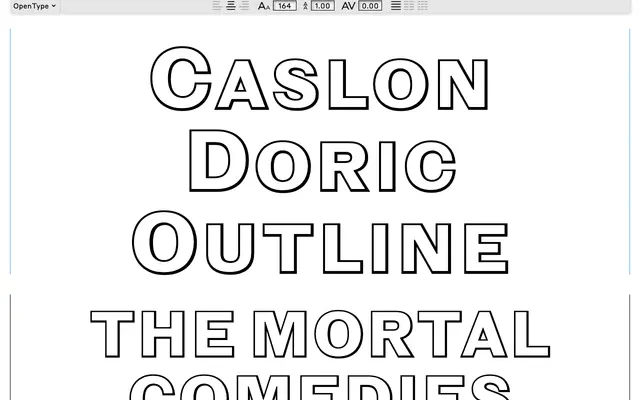
Caslon Doric Outline
Commercial Type · Paul Barnes · 2018
Caslon Doric Outline specimen from Commercial Type
The outline cut within the Caslon Doric system, drawn for display work where a hollowed nineteenth-century sans is wanted.
An outline display sans by Paul Barnes that sits within the wider Caslon Doric system, hollowing out the grotesque skeleton for posters, mastheads and packaging where you want a nineteenth-century British sans treated as ornament rather than text. Reads as a companion to the standard Caslon Doric widths, useful for short bursts of display typography in editorial, identity and signage work.
Commercial Type position Caslon Doric Outline as an outlined cut within the Caslon Doric system, intended for display use where a hollowed, nineteenth-century inflected grotesque is wanted.